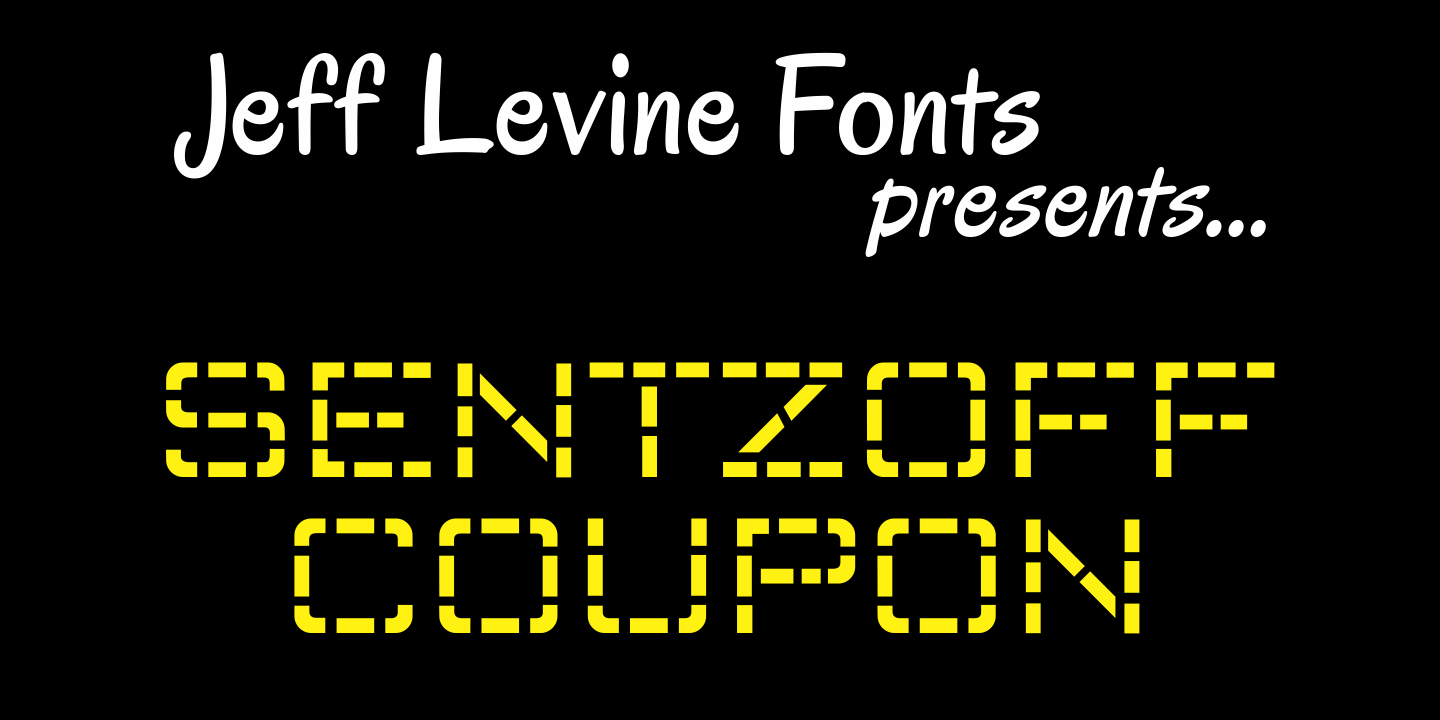
Sentzoff Coupon
The perfect font for coupon clippers has arrived with Sentzoff Coupon JNL by Jeff Levine. The dashed lines form letters in the same way a coupon is bordered.